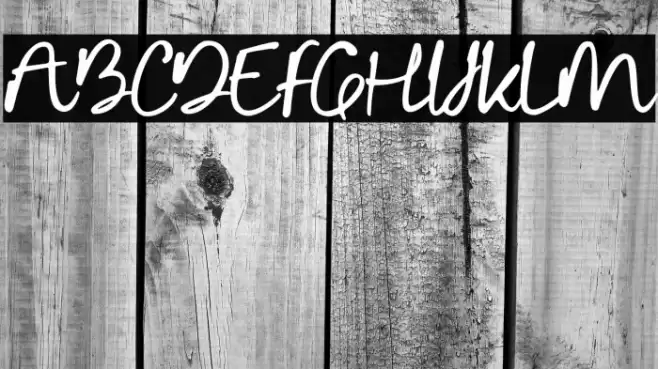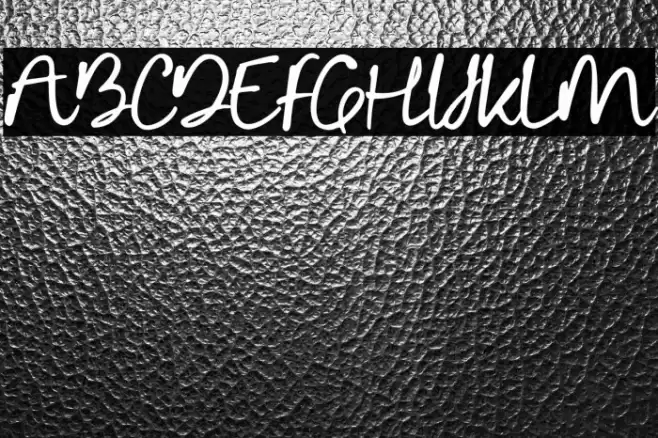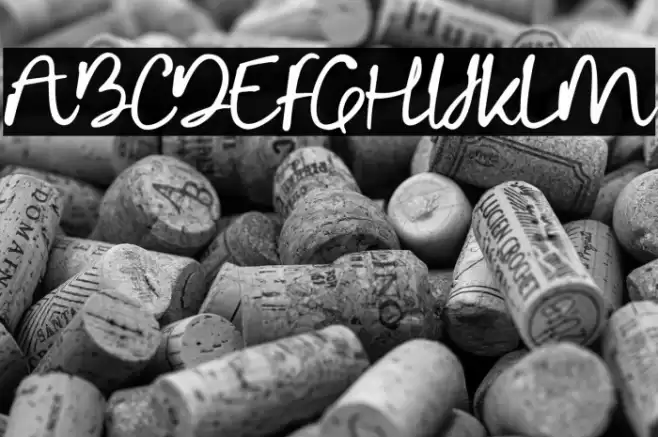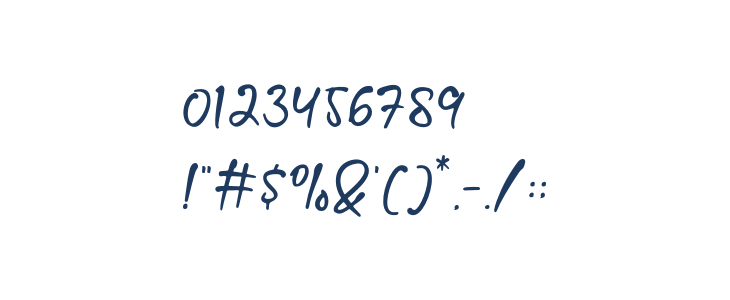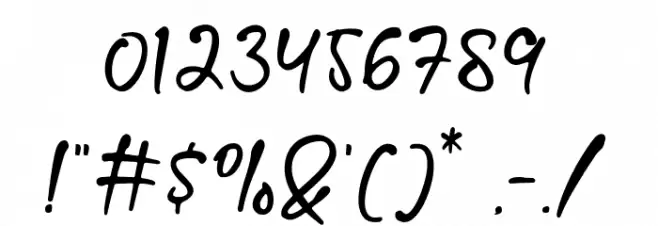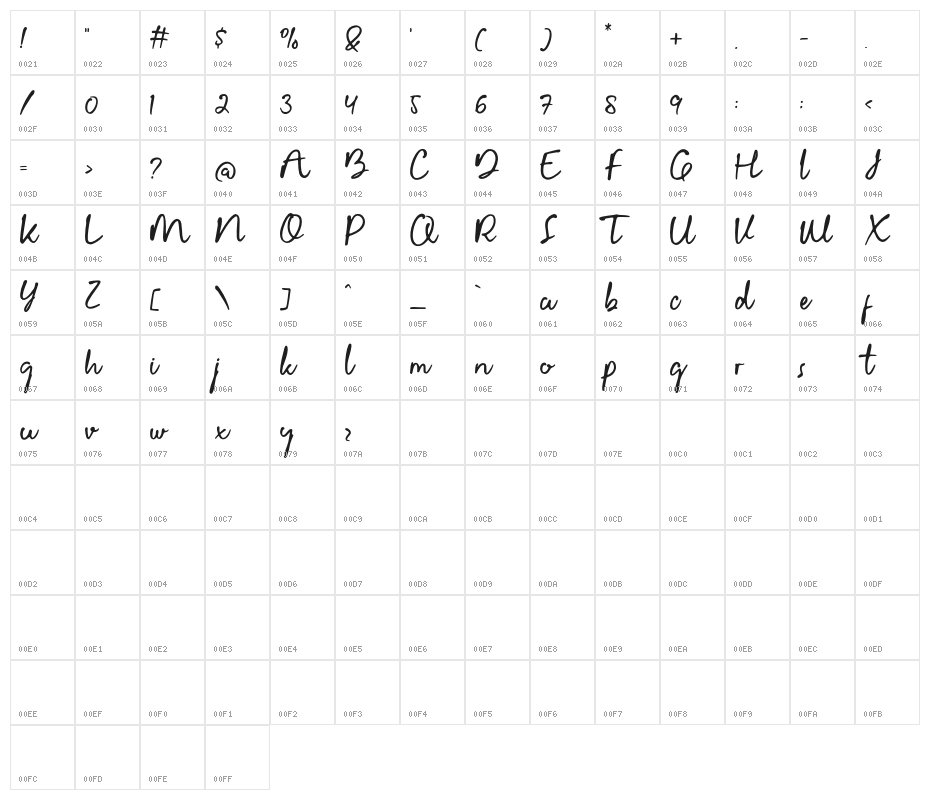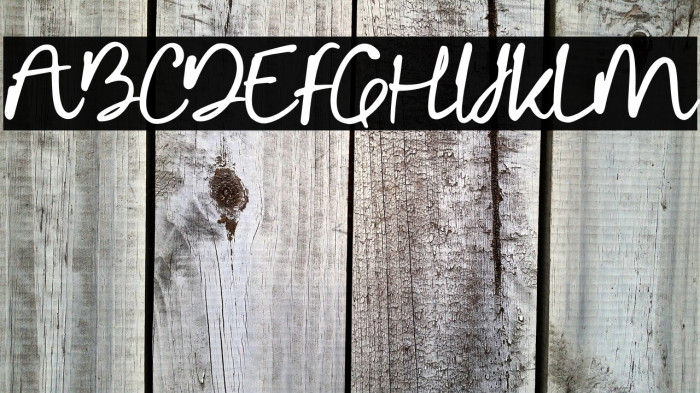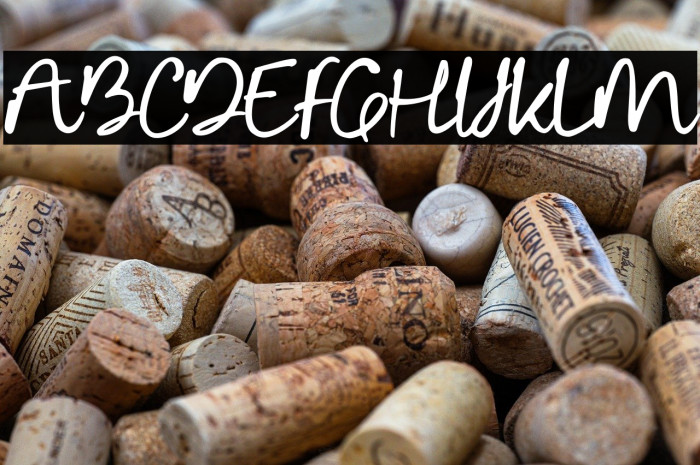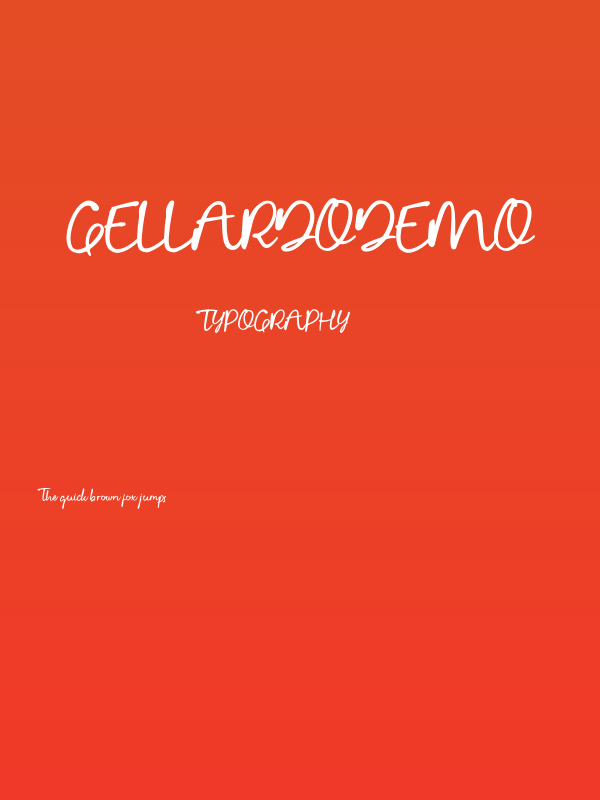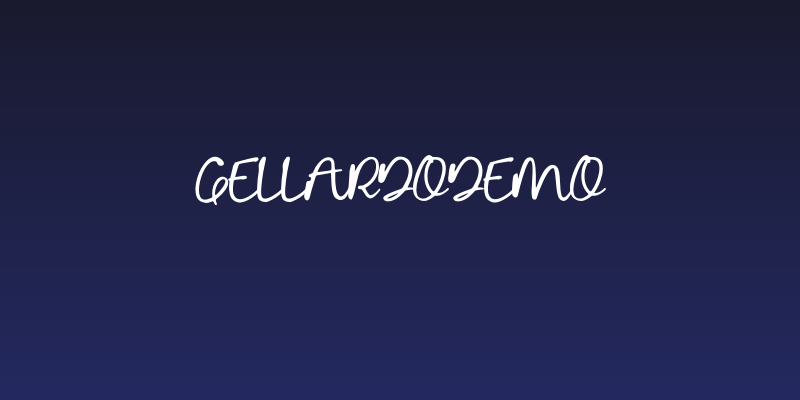
GellardoDemo Font
GellardoDemo Description
This font exudes a lively and dynamic energy with its fluid, cursive style. The characters are interconnected, creating a seamless flow that mimics natural handwriting. The strokes vary in thickness, adding a sense of movement and personality. The uppercase letters are bold and slightly slanted, while the lowercase letters maintain a consistent rhythm. Numbers and special characters are crafted with the same attention to detail, ensuring a cohesive look. This font is perfect for projects that require a personal touch, such as invitations, greeting cards, or branding materials that aim to convey warmth and approachability.
A lively, cursive font with interconnected characters and varied stroke thickness from Uncategorized fonts.
- Proposed Projects: Ideal for invitations, greeting cards, and branding materials seeking a personal touch.
- Character Spacing: Tight
- Use Case: Logos, Headlines, Invitations